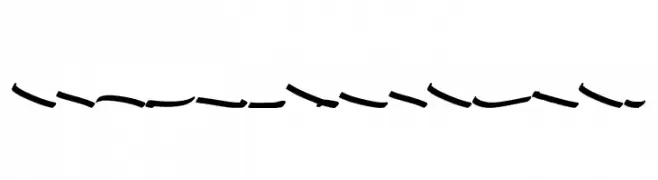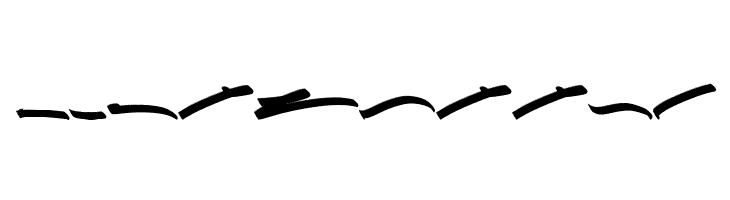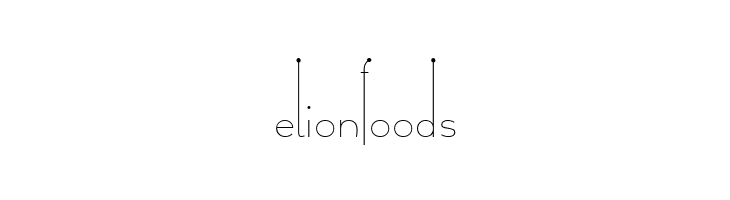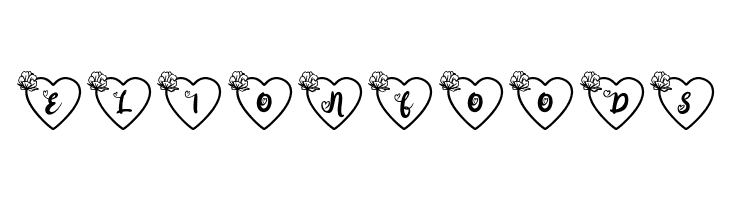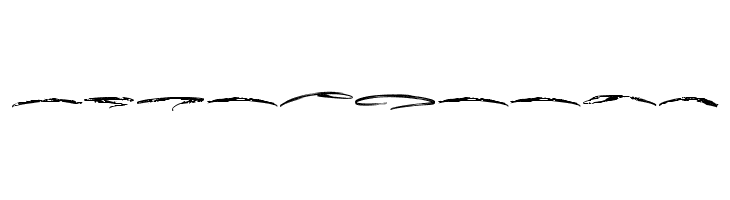
A bold, decorative font with geometric accents and a modern flair.
Dynamic, flowing swash lines with a bold, hand-drawn appearance.
A modern, dotted font with a sleek and minimalist design.
A festive, decorative font with ornamented characters perfect for holiday themes.
A decorative font with letters in heart shapes, featuring floral accents.
A playful, snowflake-accented font with rounded, bold characters.
A playful, heart-accented font with bold, rounded characters and a hand-drawn style.
Whimsical hand-drawn botanical ornament.
Hand-drawn, textured arrow swashes with a sketchy look.
Decorative underlines resembling cursive handwriting.